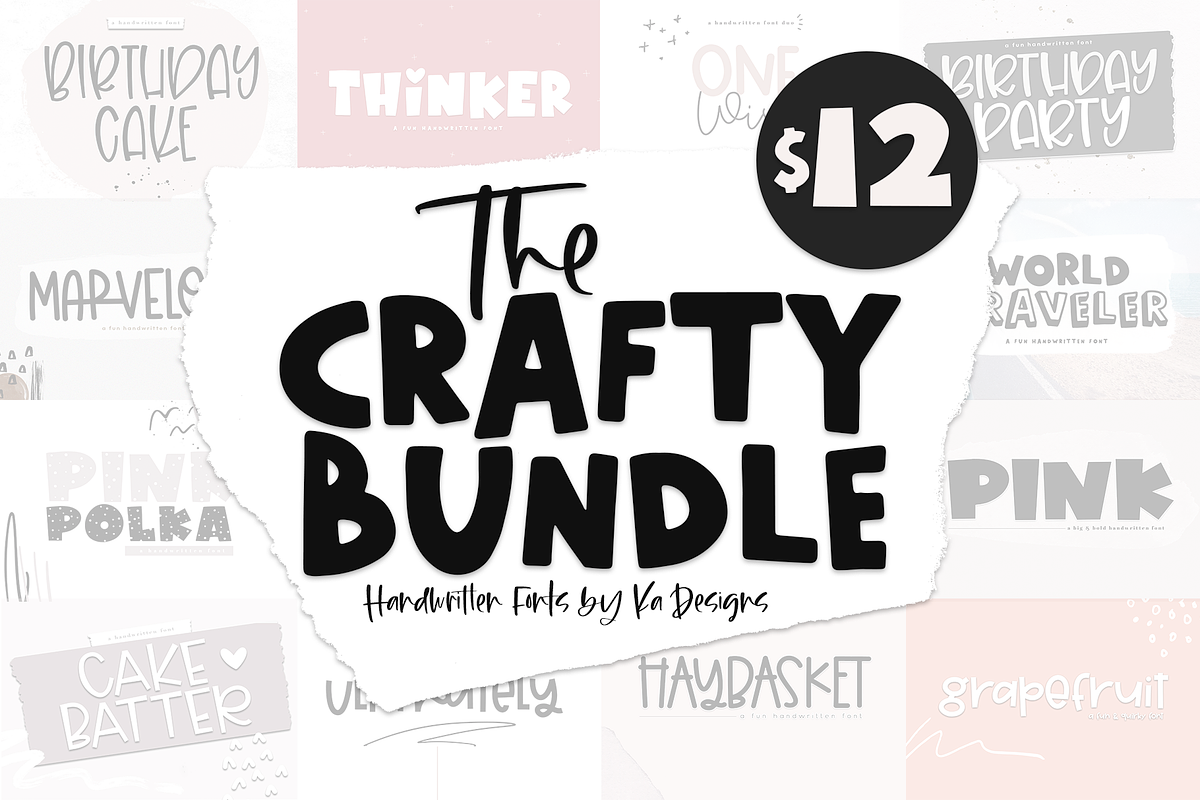
The Crafty Bundle - 14 Fonts Free Download
Unleash your creativity with The Crafty Bundle - 14 Fonts Free Download — a versatile collection of hand-picked typefaces designed for makers, crafters, and creative entrepreneurs. Whether you're working on invitations, signage, product labels, or digital designs, this bundle gives you the variety you need to bring your ideas to life.
Each font in this bundle has its own unique flair—ranging from playful scripts to bold display styles—giving you the tools to craft visually engaging and personalized projects. Perfect for Cricut users, handmade product sellers, and bloggers looking for standout typography.